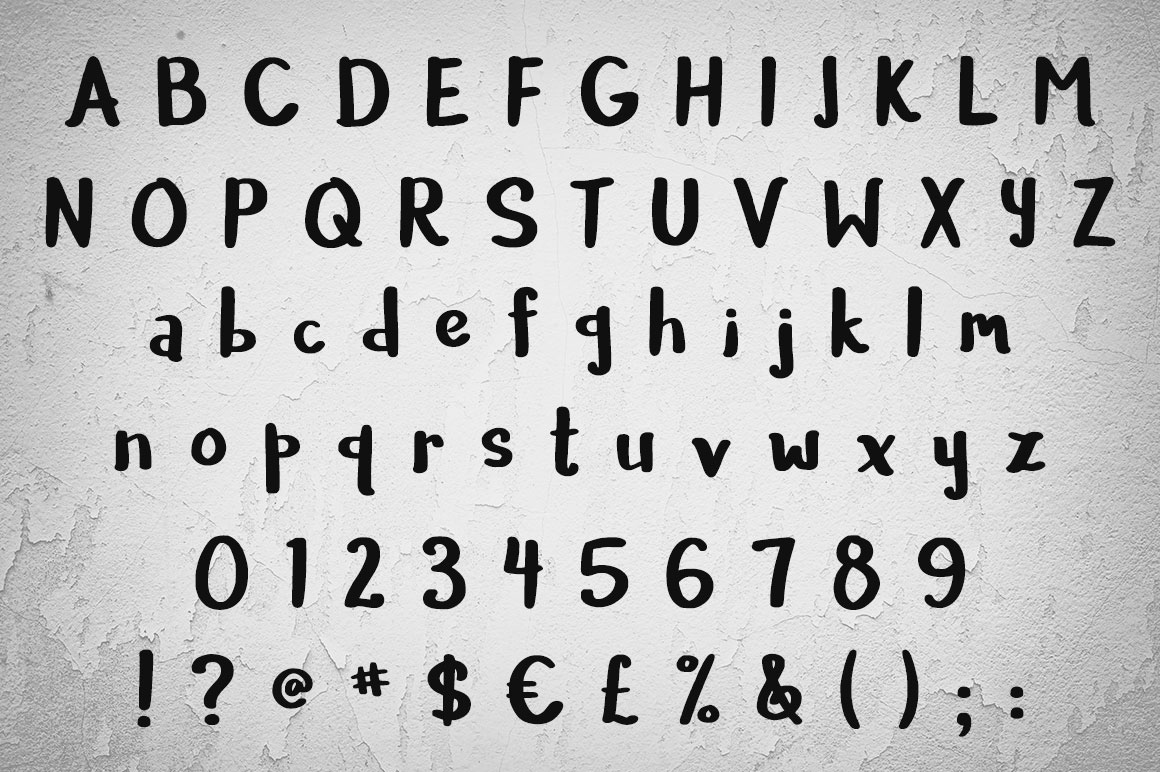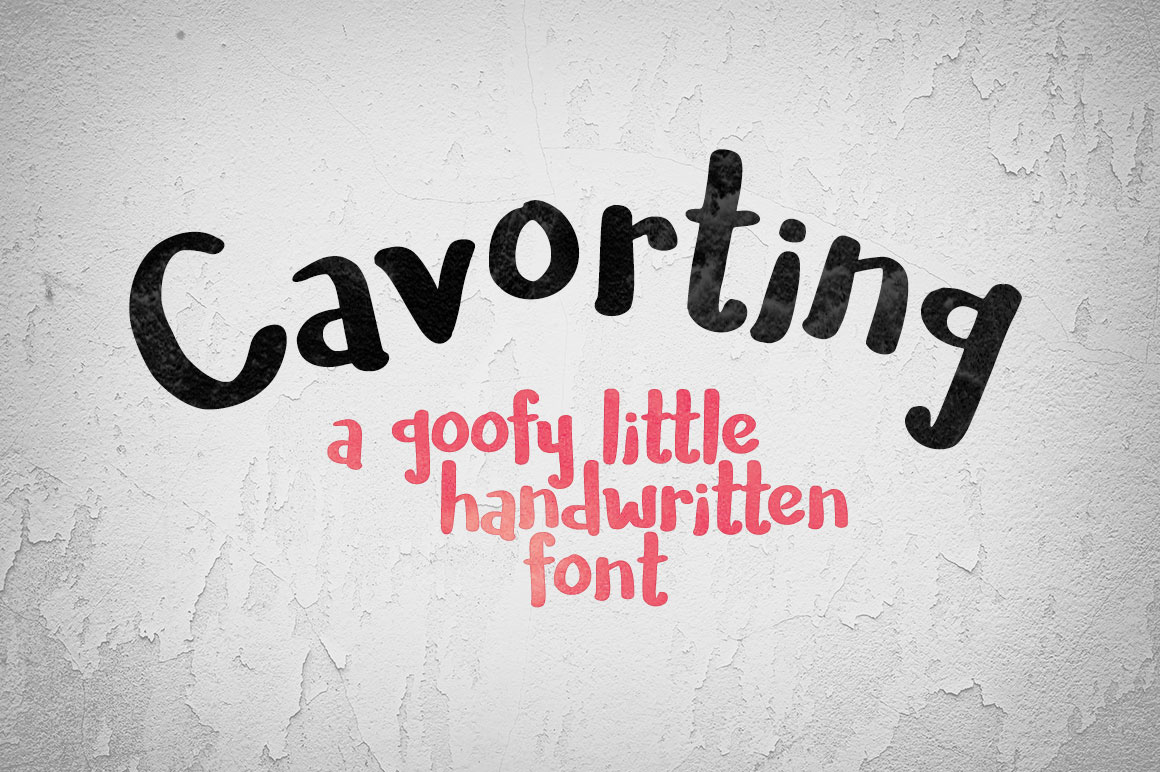
Cavorting Font
Right here is the Cavorting Font is considered as a high-quality text generator. This typeface is utilized in adobe and it comes under the category of display fonts. As a surrender the quit give up the result, it makes it feasible for being one of the vital multi-valuable this is just like proxima nova font alternatives and pinnacle-notch to help your layout and seem knowledgeable. It is bendy that may be a terrific way to artwork in frame replica as proper as titles, and there may be an understated splendor to it that we pretty like.
So, it’s considered extraordinary for quite-modern-day-day designs. Cavorting Font Free You want to pick out out out the form of font that’s nicely superior, and every and anybody is recognizable in small sizes, formidable, or italic. And all of these patterns have possessed opentype file codecs. This font is the satisfactory one which has lines at the top of absolutely everybody.
It seems like wild magnolia and attractive fonts.